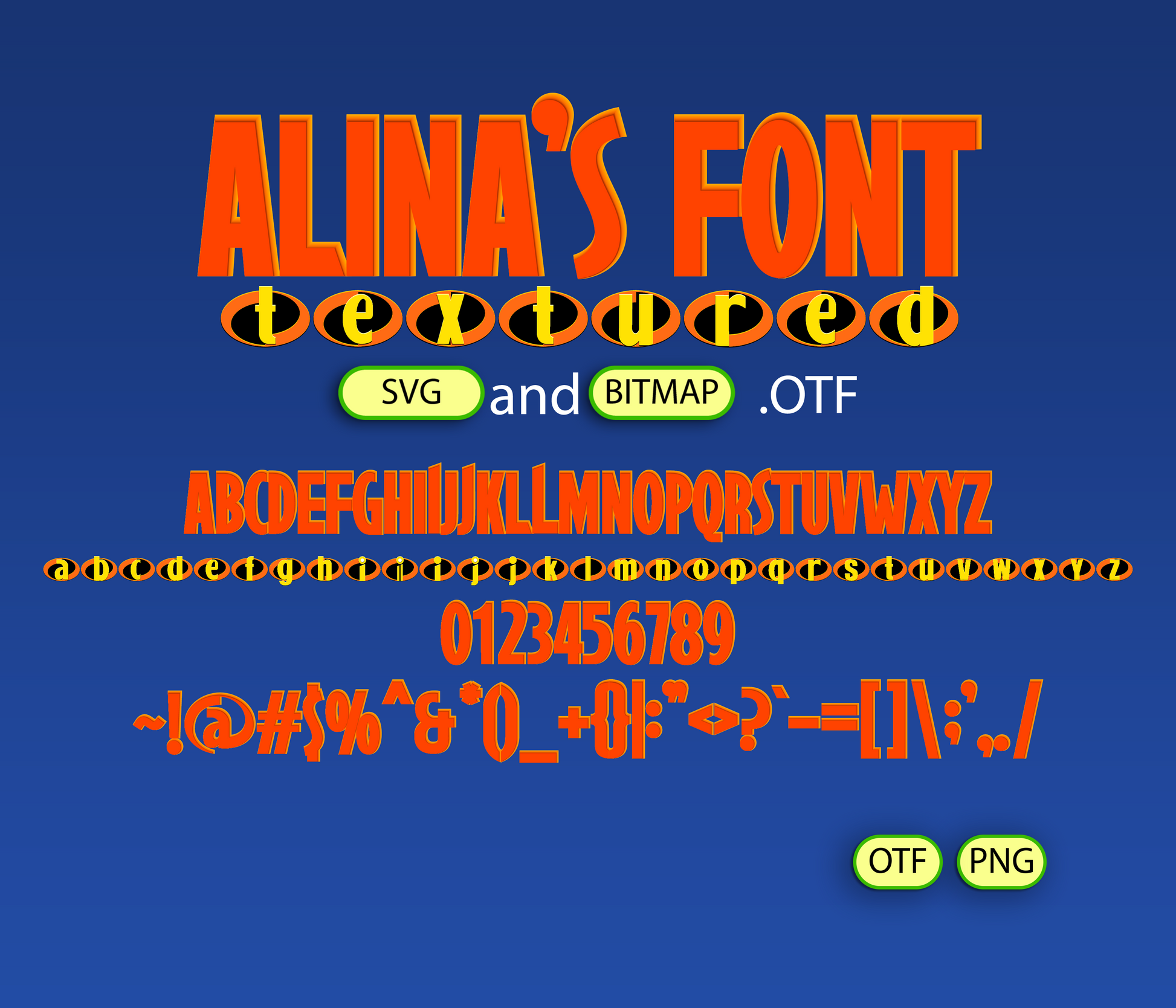
Incredible Heroes Font Textured
Step into the world of animated superhero adventures with our Incredible Heroes font. This dynamic typeface captures the essence of a beloved family of superheroes, characterized by its bold, retro-futuristic style and playful energy. Each character in this font reflects the strength, unity, and extraordinary abilities of this iconic superhero family, making it perfect for projects that aim to evoke the nostalgic appeal and excitement of this animated classic.
Envision a typeface that perfectly encapsulates the film's distinct 1960s superhero aesthetic and retro design. Our Incredible Heroes font is designed to mirror the movie's distinctive look, with a focus on bold, powerful letterforms that are reminiscent of mid-century superhero comic books. It includes an extensive character set, featuring alphabets, numbers, and special symbols, offering a comprehensive solution for various design projects, from themed party invitations to superhero merchandise.
The Incredible Heroes font is more than just a typeface; it's an homage to the classic animated film that has delighted generations.